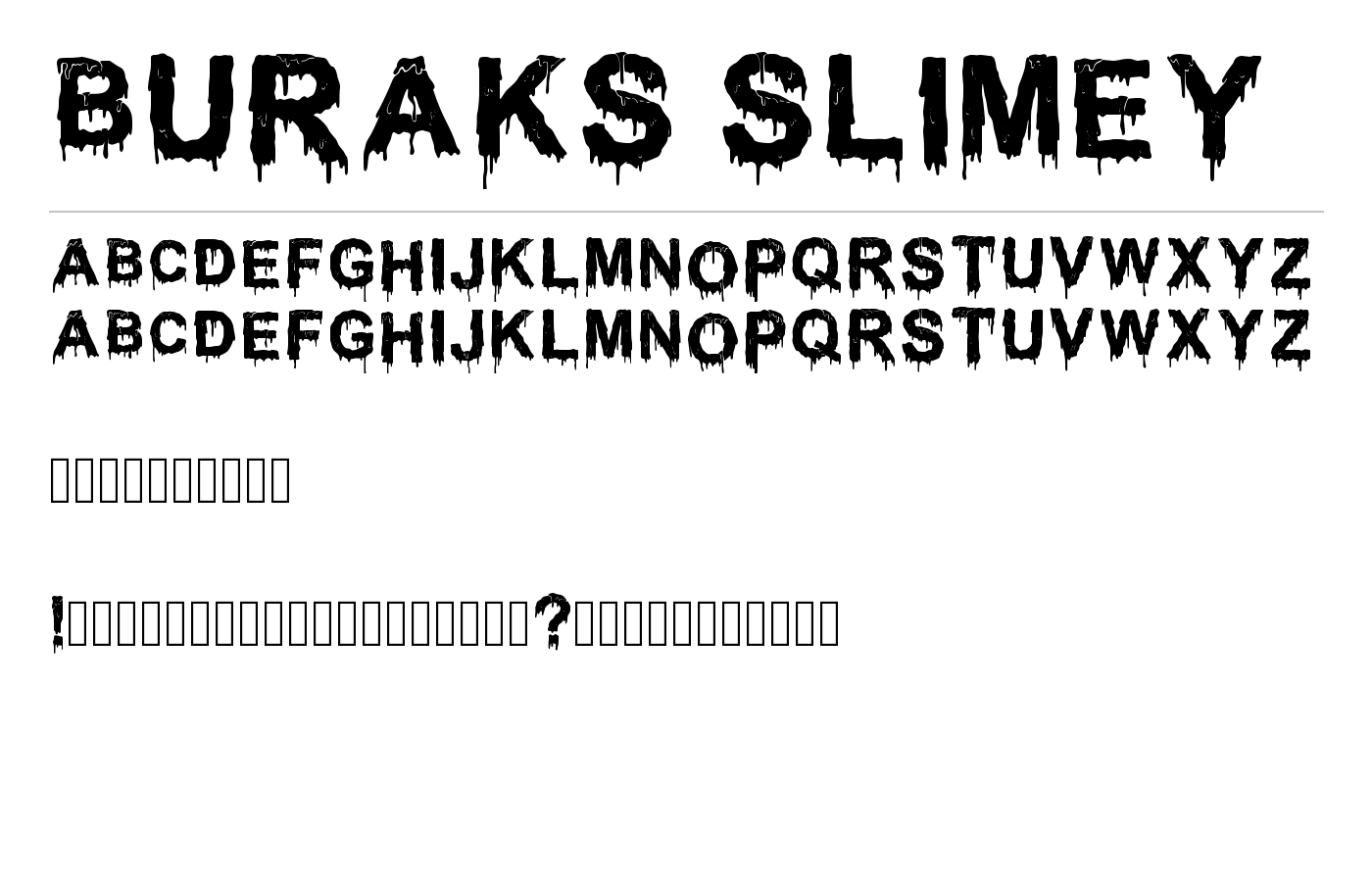
Buraks Slimey is a bold, uppercase sans serif font with a playful, dripping slime effect that gives it a unique, spooky personality. Its uneven edges and organic, gooey texture make it ideal for Halloween-themed designs, fun posters, or any project needing a quirky, eye-catching display typeface. This font works best in headlines and logos where a bold, informal, and creative style is desired.
Buraks Slimey Font
About Buraks Slimey Font